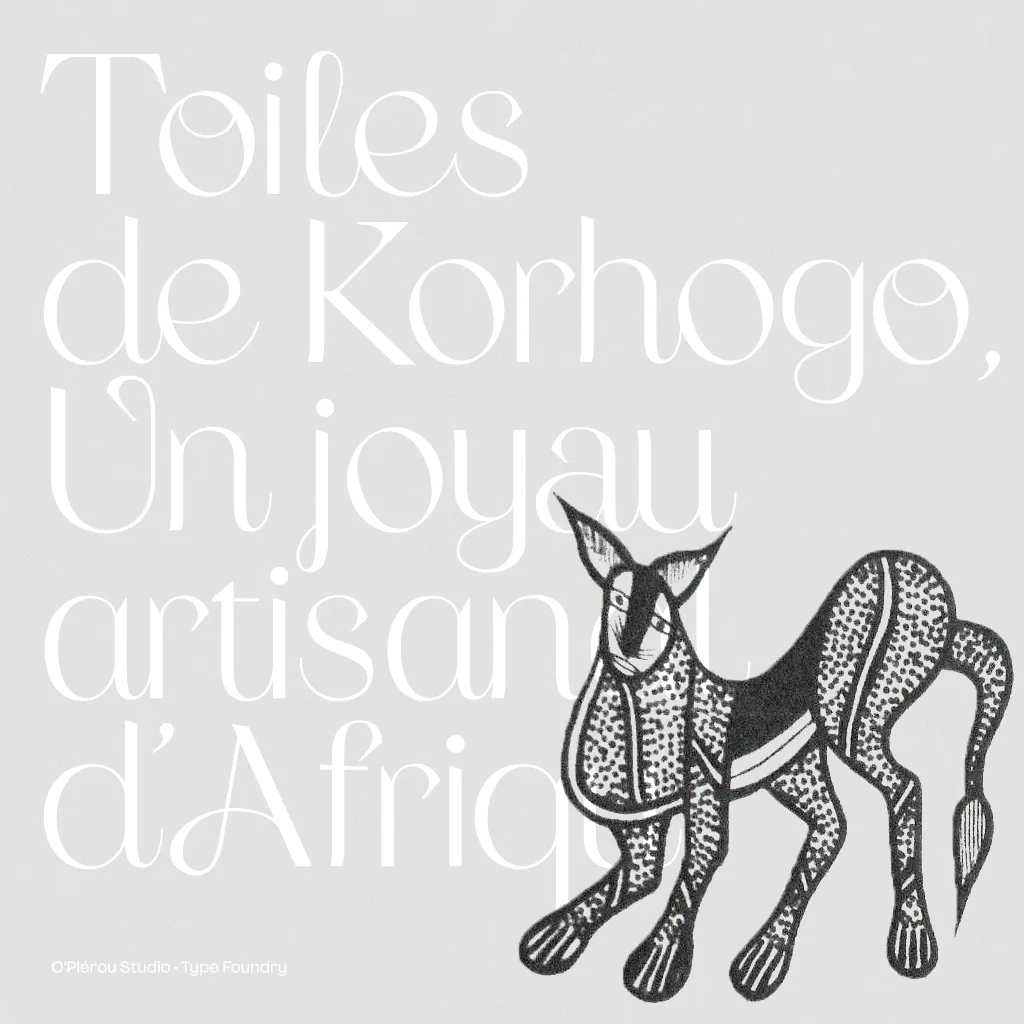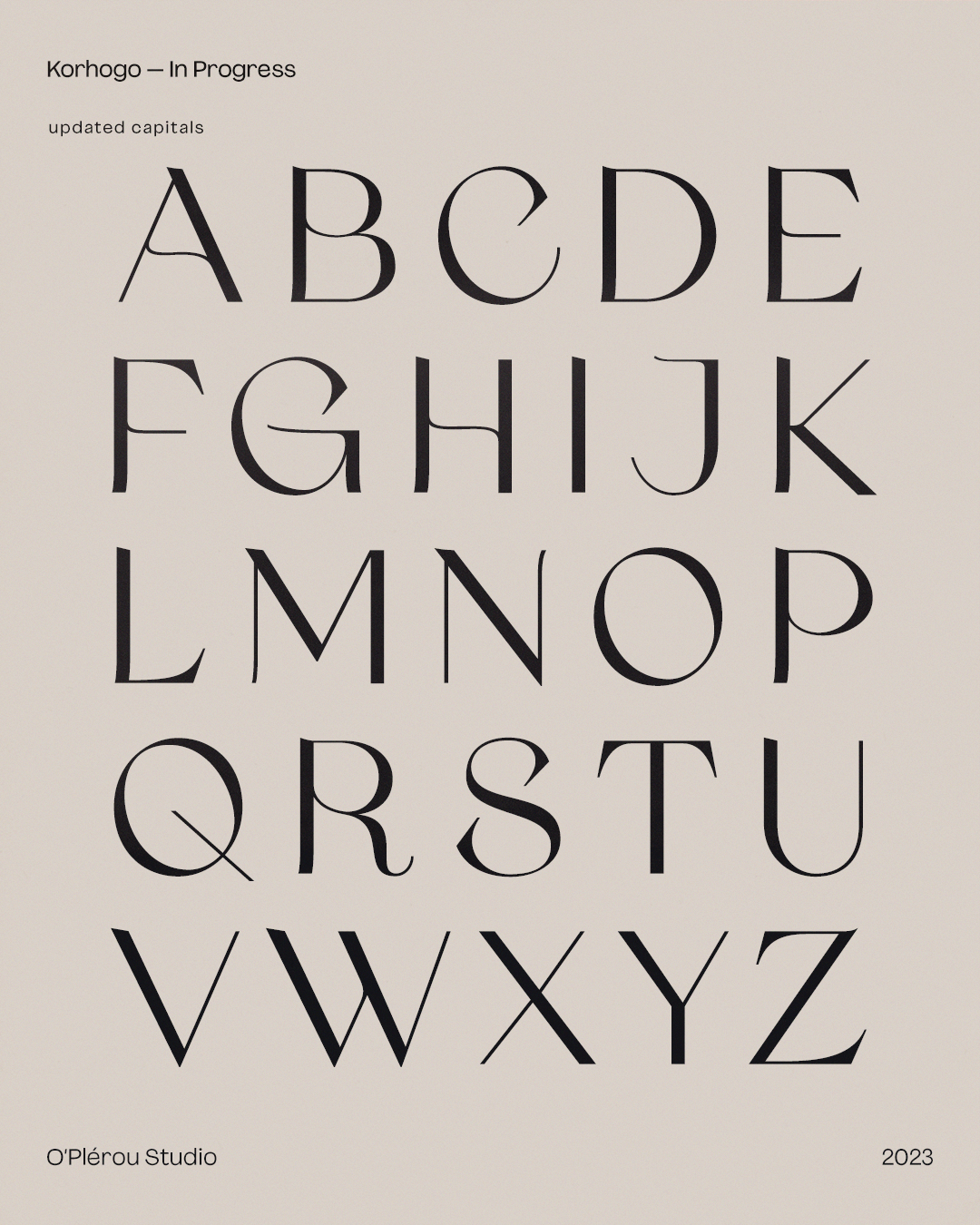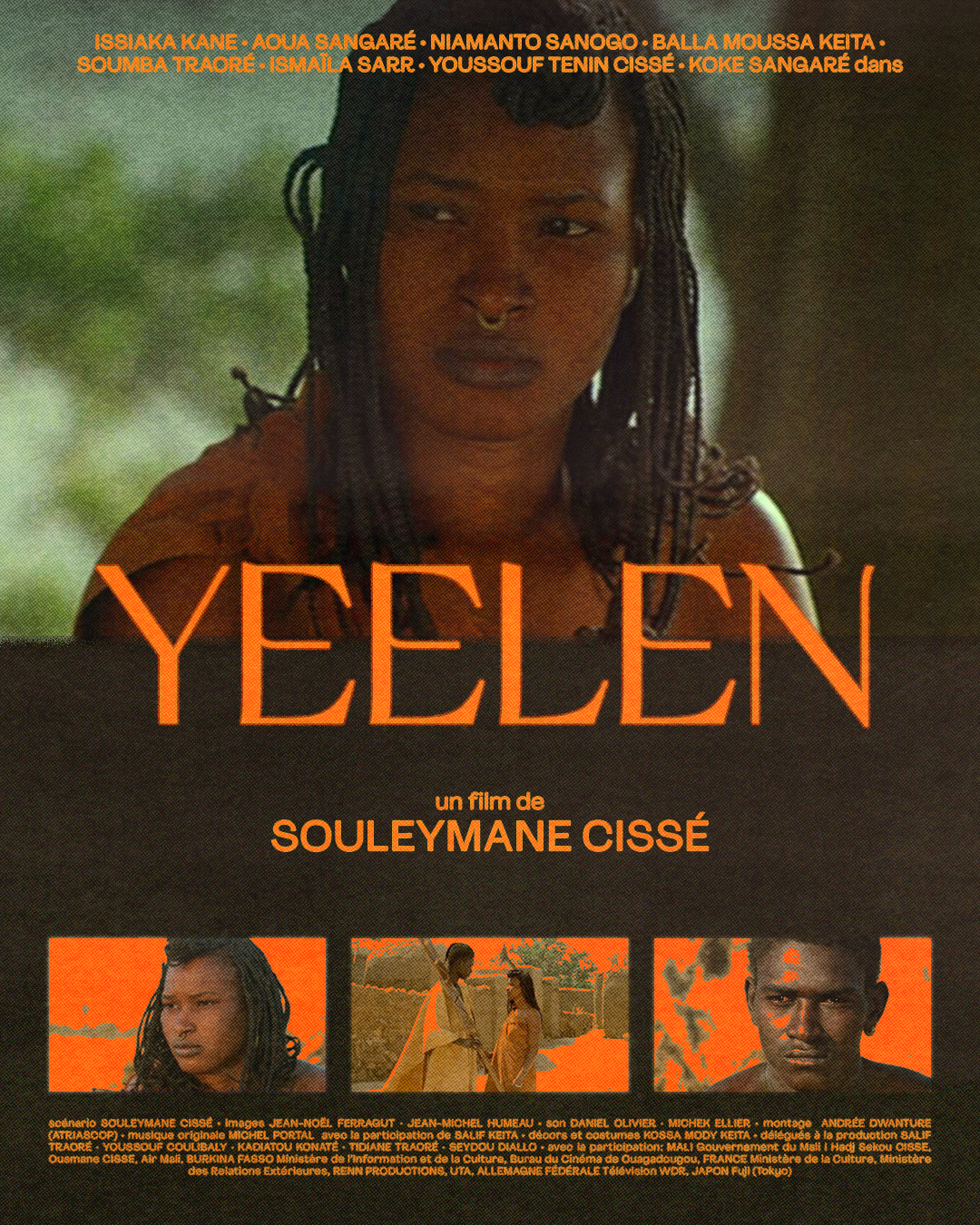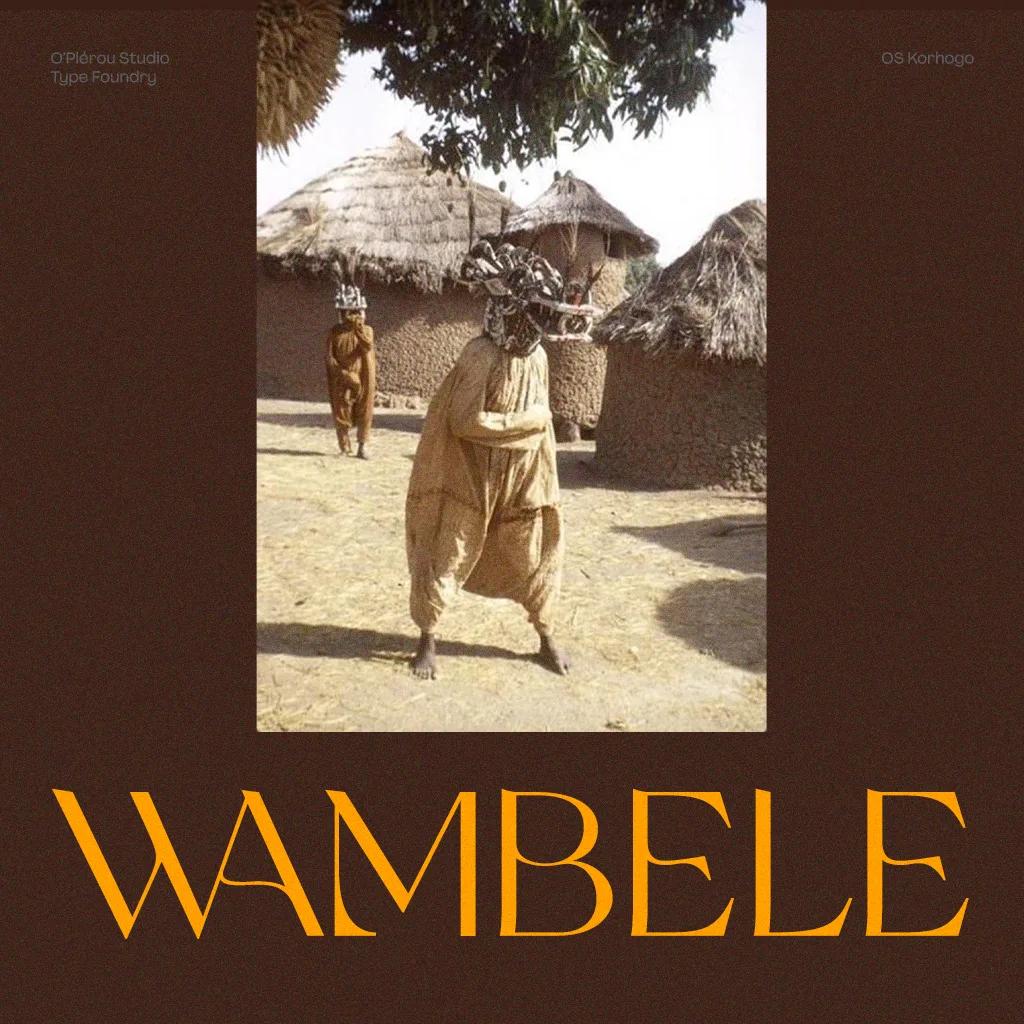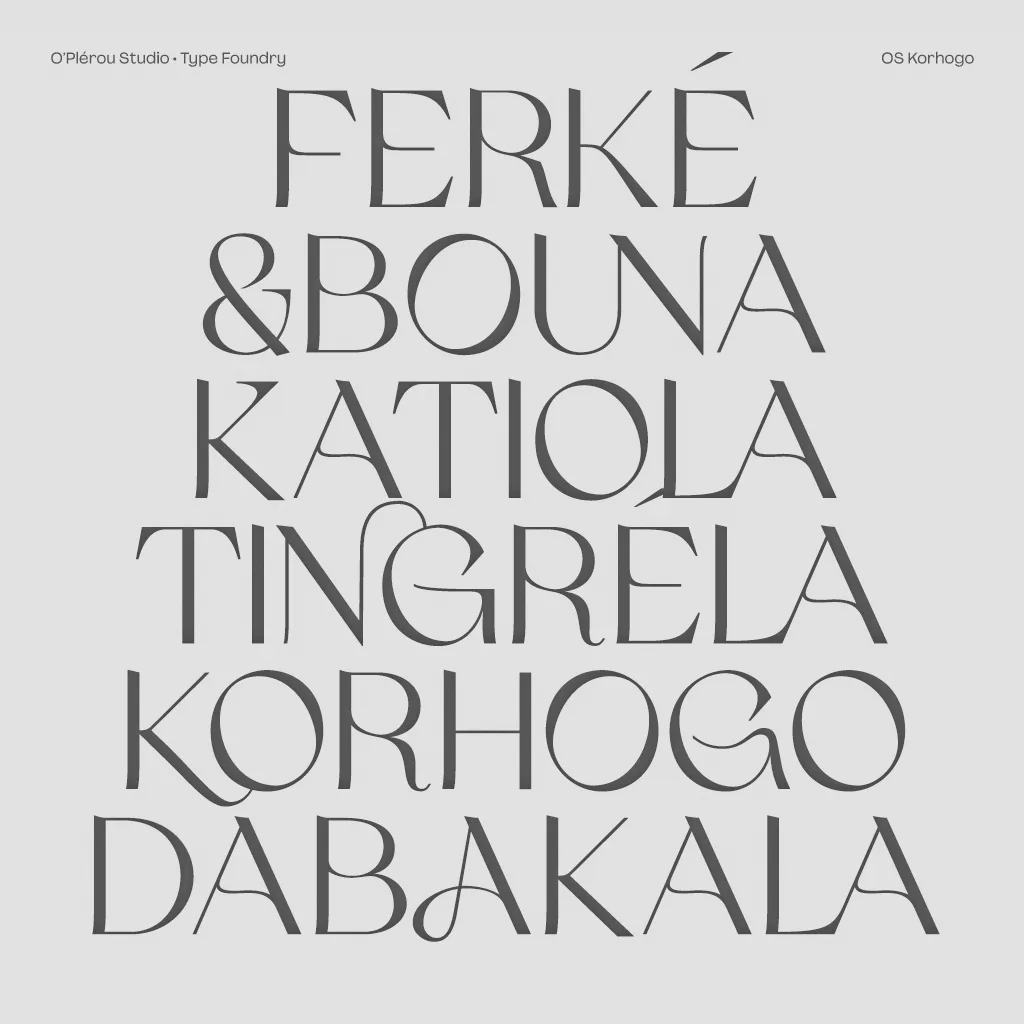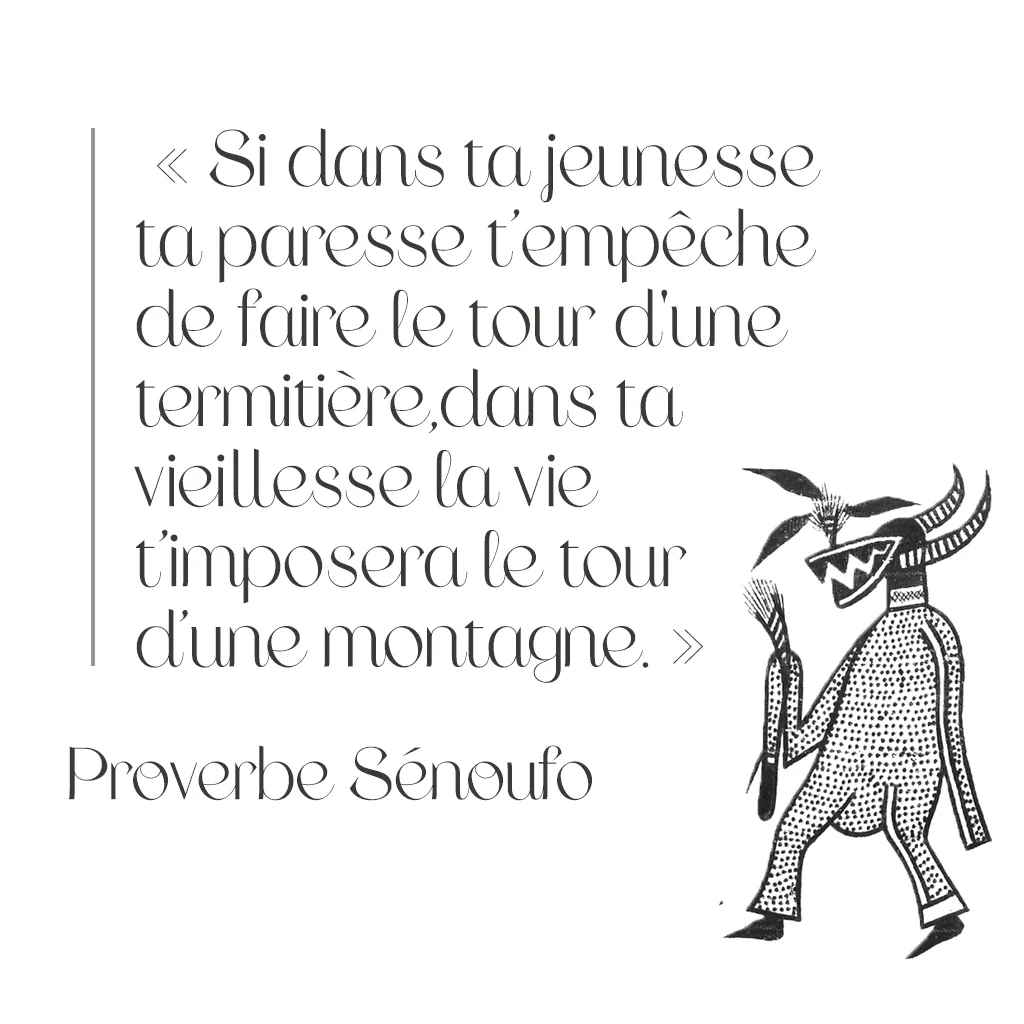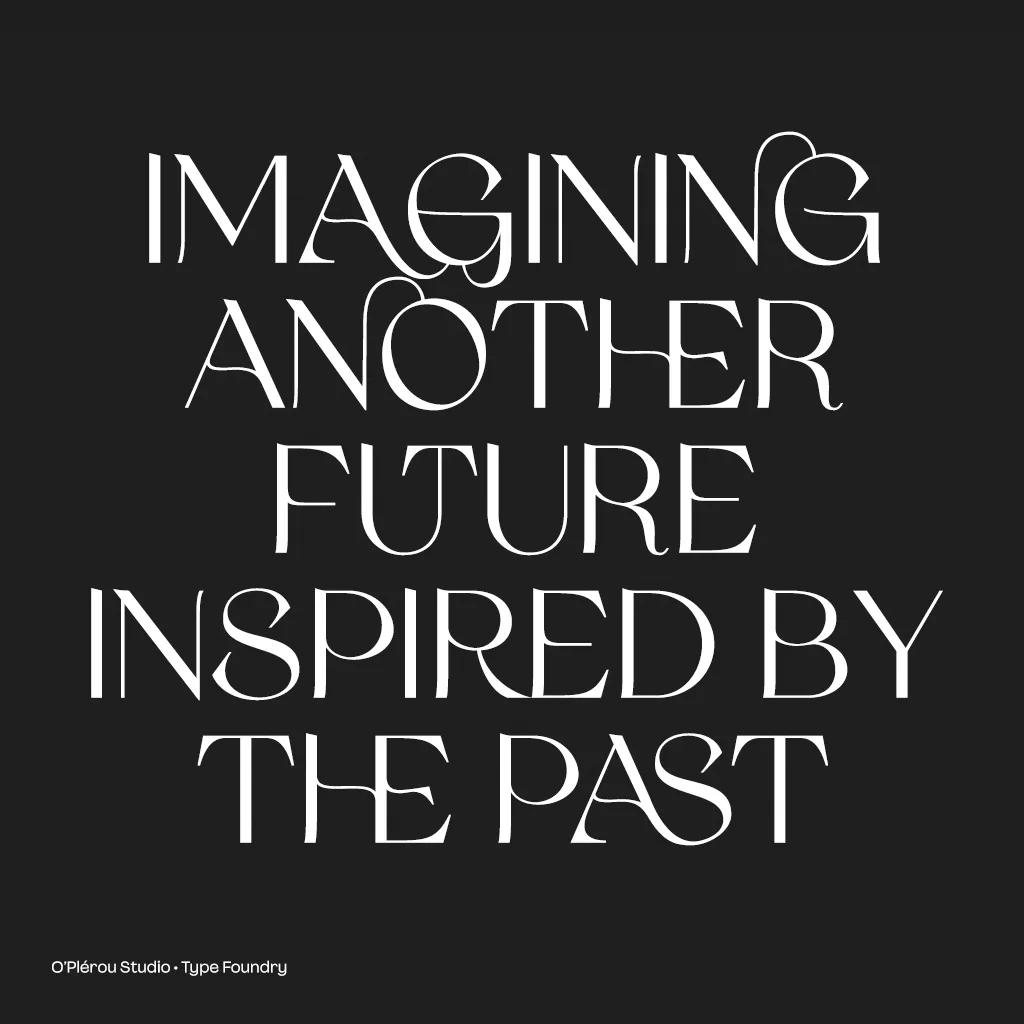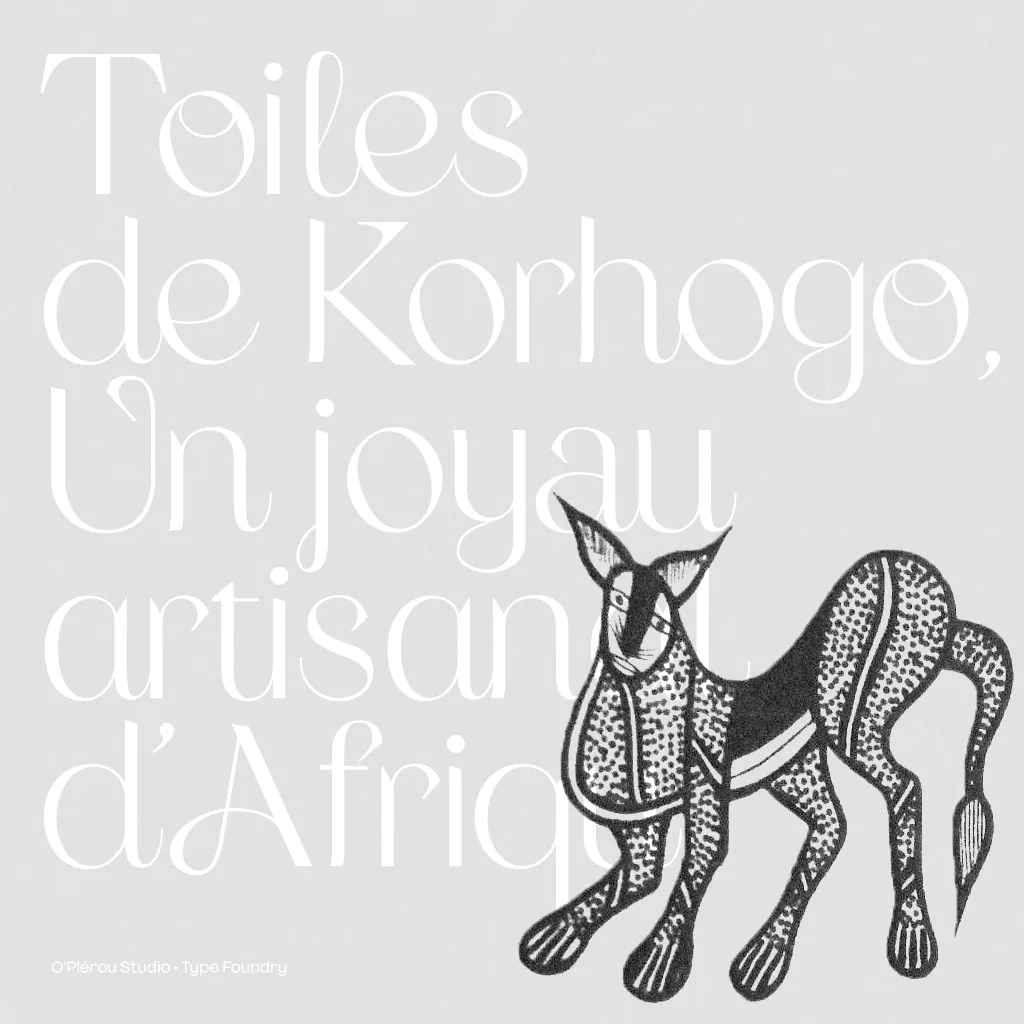
OS Korhogo
Korhogo is a experimental typeface that pays tribute to the city of Korhogo in Côte d’Ivoire and its Senufo Culture. It combines elements of Serif and Sans typefaces, and has cursive features in some of its lowercase letters. The letterforms are sharp, highly contrasted and have harmonious curved details. Korhogo comes with two main stylistics sets, representing the dryness of the climate and the craftsmanship of the city’s artisans.
OpenType Features
Discretionary Ligatures
Old Style Numbers
Stylistic Set 1: Dryness
Stylistic Set 2: Craftsmanship
Inspired by the craftsmanship and culture of Northern Côte d’Ivoire, Korhogo is a delicate and elegant yet strong typeface capturing the transformative magic of the Senufo culture. Its ability to blend the modernity of sans serifs, the tradition of serifs and the expressiveness of cursive creates a cohesive, dynamic typeface embodying creativity and originality. Korhogo is perfect for brands aiming to convey an excellence-driven mindset that value beauty and artistry.
Featuring elegant ligatures and versatiles alternates, Korhogo empowers you to showcase your creativity and sophistication. This font is an ode to mastery and excellence, making it an ideal choice for prestigious and innovative brands carrying a subtle romantic touch.